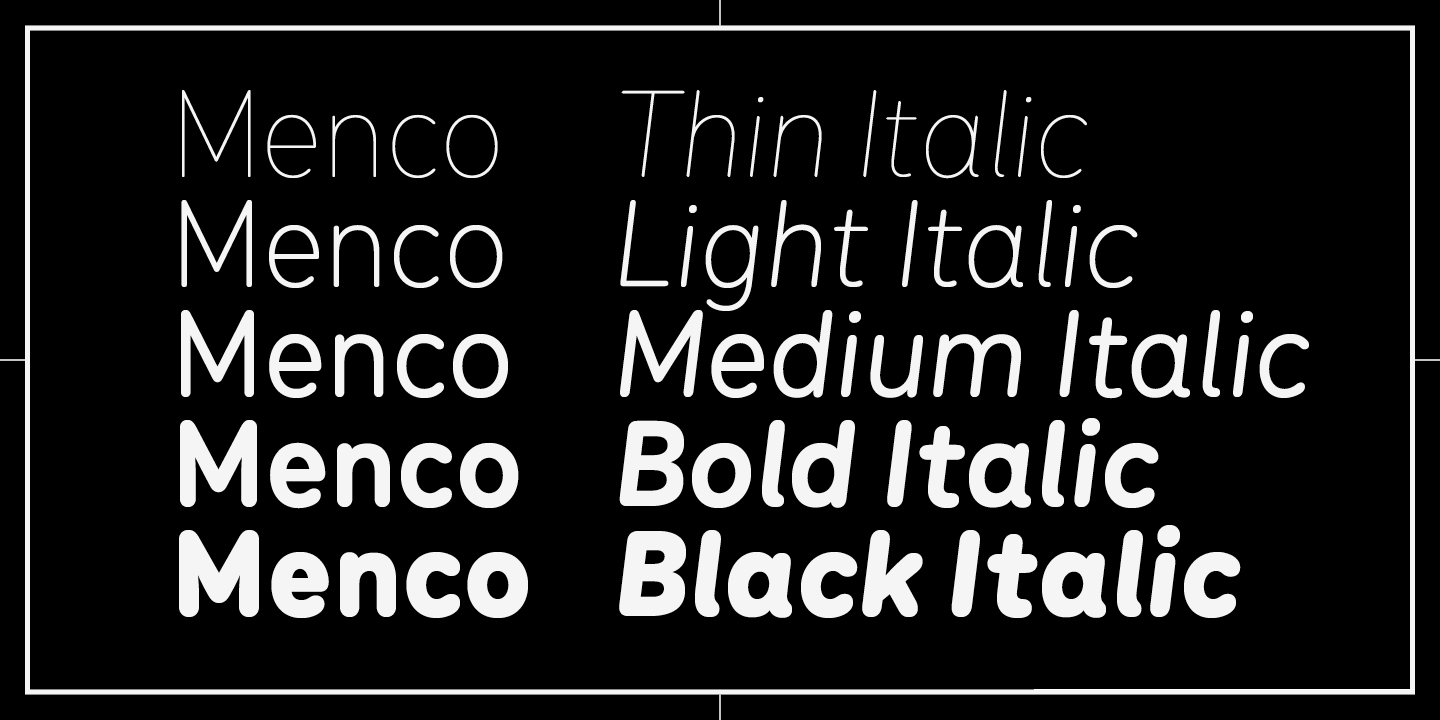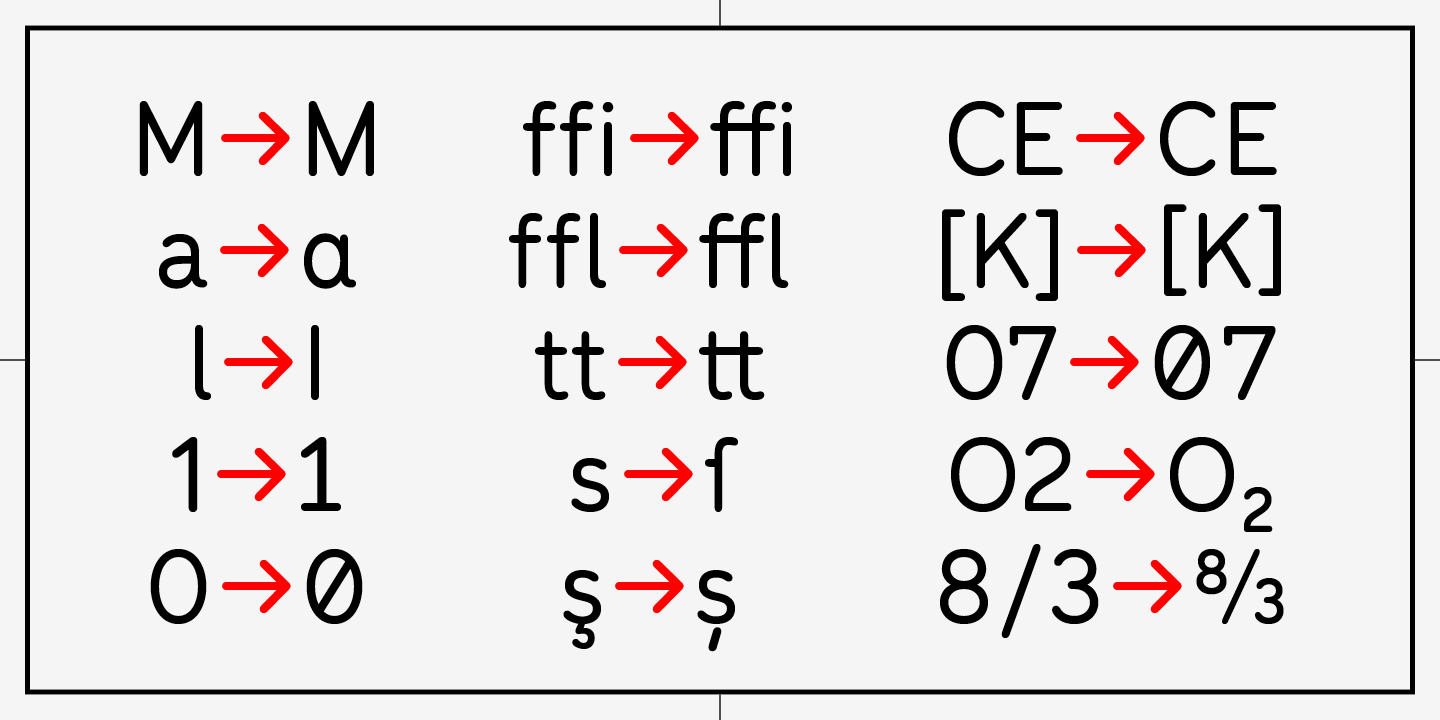
Menco was inspired by the lettering of engineering, found on blueprints, mechanical drawings, stencils and templates. The family has 5 weights, ranging from Thin to Black (including italics) and is ideally suited for advertising and packaging, editorial and publishing, logo, branding and creative industries as well as small text. Menco provides advanced typographical support with features such as case-sensitive forms, fractions, super- and subscript characters, and stylistic alternates. It also comes with tabular lining and proportional lining figures.